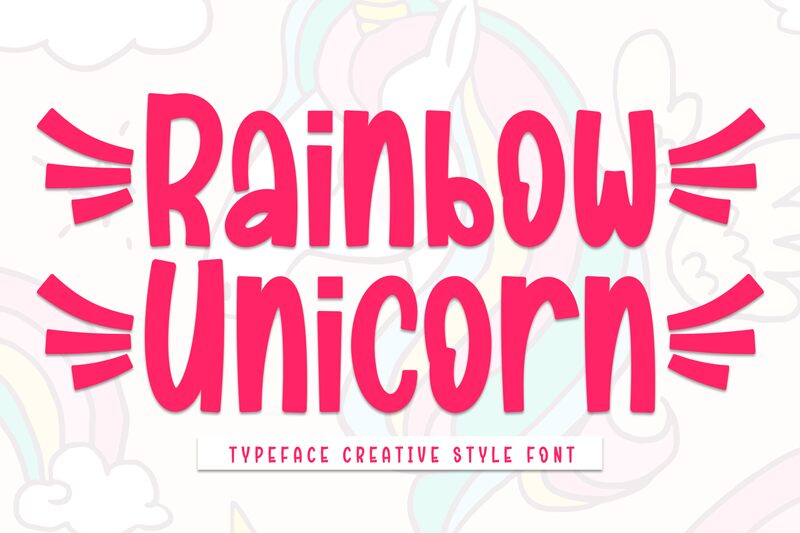
Rainbow Unicorn font by Scratchones is a free cartoon font with a playful and energetic personality. Contemporary, lively, humorous, and informal, it is suitable to really add some life to your creative designs especially when added in bright vibrant colors. When it comes to the individual use of the font itself, the eccentric letterforms could look both serious and whimsical depending on how you choose to work with them.
The font suits fun contemporary applications in children’s products, event flyers, and social media graphics. You can also try and use it in projects like posters, magazines, product branding, and even apparel design.